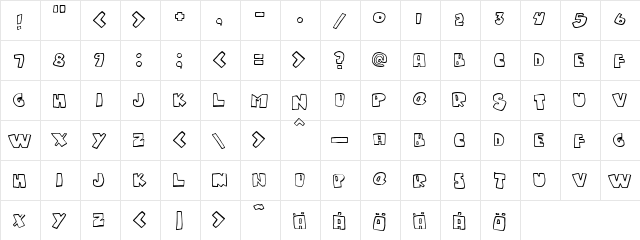
Gumpy one Regular
Design Context for Gumpy one Typeface
Gumpy one is a composed and adaptable typeface that performs quietly and consistently across a wide range of design contexts.